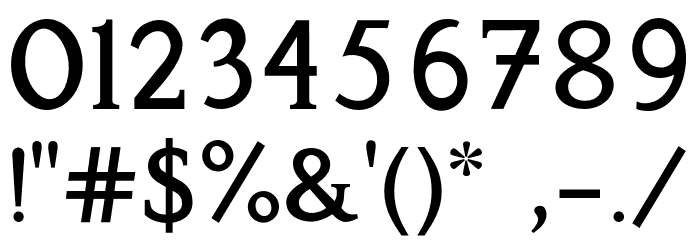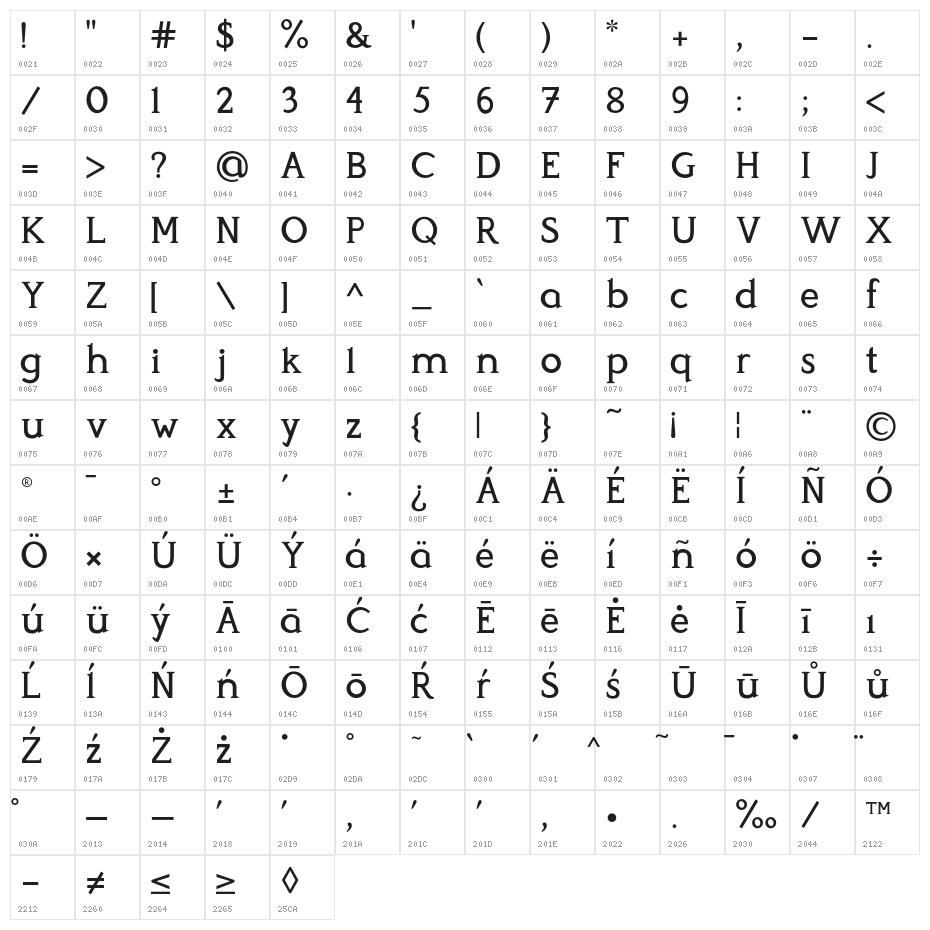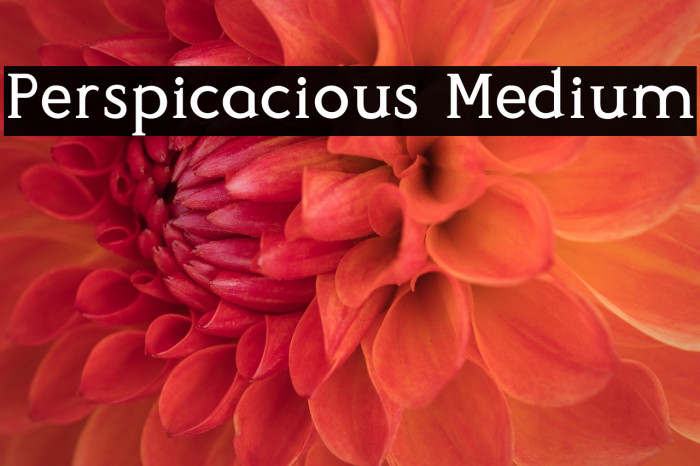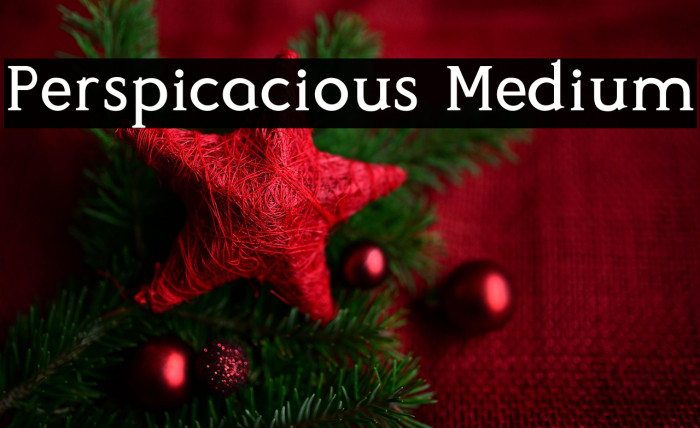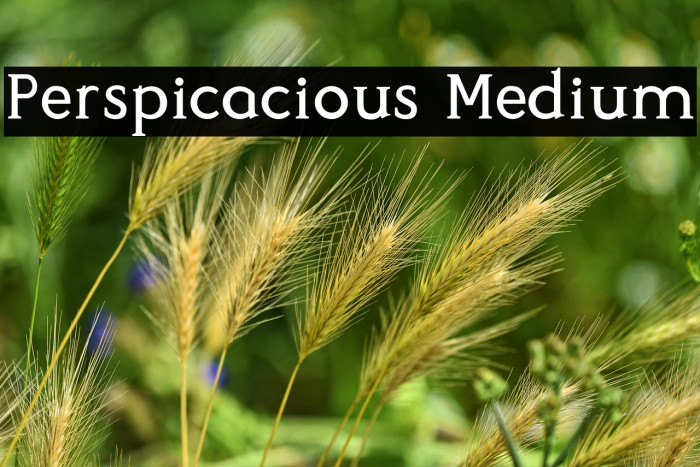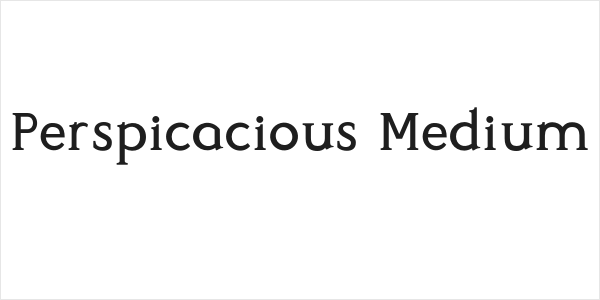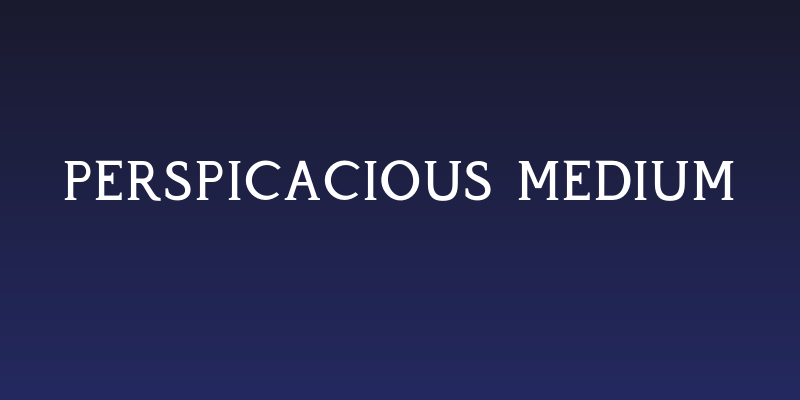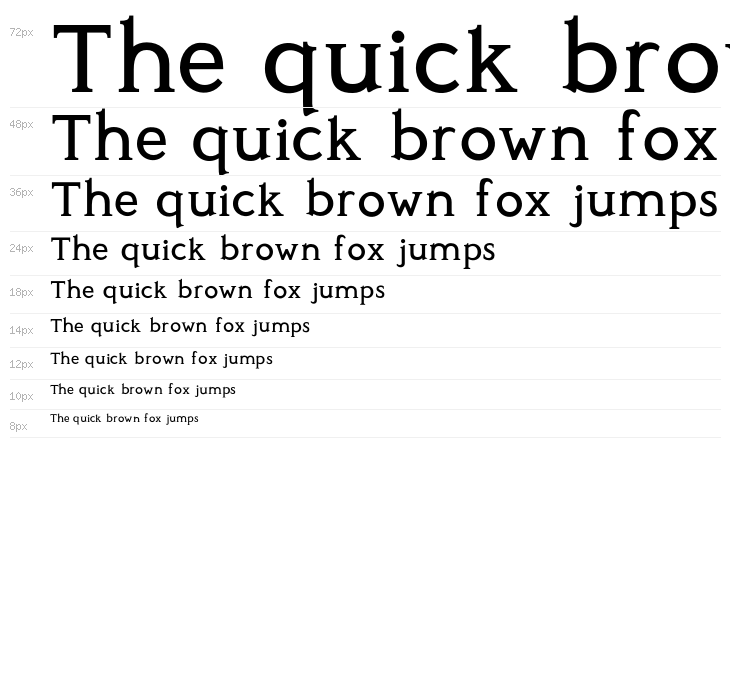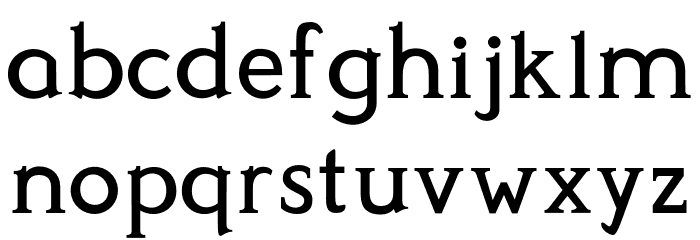
Perspicacious Medium Font
Perspicacious Medium Description
This font exhibits a classic serif style with a modern twist, characterized by its medium weight and balanced proportions. The serifs are pronounced yet refined, providing a sense of elegance and readability. The uppercase letters are bold and commanding, while the lowercase letters maintain a consistent flow with slightly rounded edges. The numerals are clear and distinct, making them suitable for both text and display purposes. Special characters are well-integrated, ensuring versatility in various contexts. The overall design is both timeless and contemporary, making it suitable for a wide range of applications.
Use CaseHeadlines, Body text, Logos
Proposed ProjectsIdeal for editorial design, branding, and sophisticated print materials.